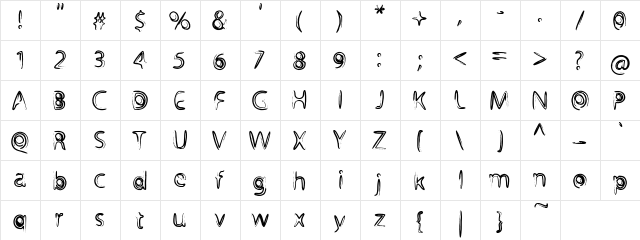
PC Marker Swirl Regular
Design Context for PC Marker Swirl Typeface
PC Marker Swirl is built around its visual character rather than neutral utility — its distinctive forms are designed to make an impression at display sizes.
Font Pairing: Pair with a clean neutral sans-serif for body copy to let PC Marker Swirl's character lead without overwhelming the composition.
Pro Tip: Use PC Marker Swirl exclusively at display sizes — it was designed to be seen, not read at length. Let a neutral companion handle body copy.